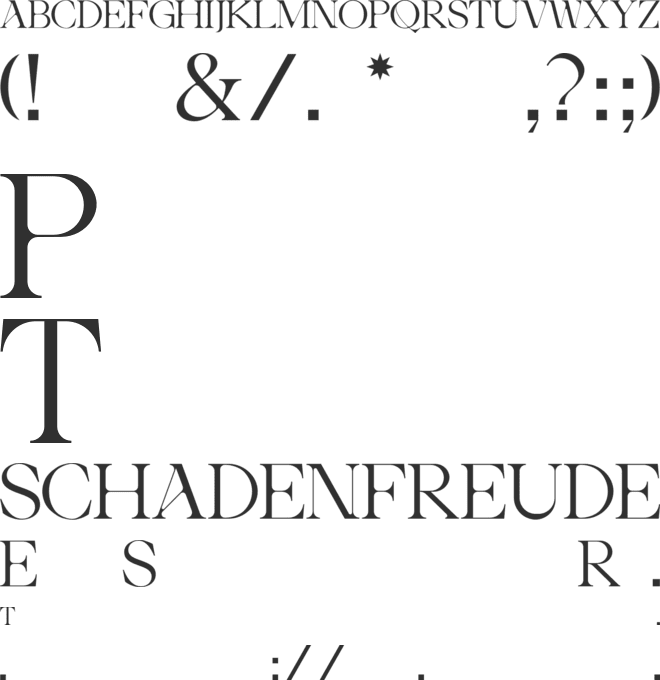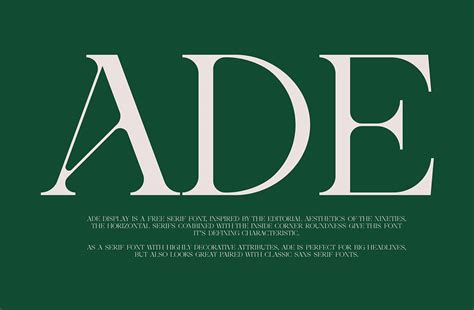
Ade Display Font
Ade Display Font - Web november 2, 2022 featured in serif. Download ade display font, a serif typeface inspired by. Web ade display font is an elegant, luxury, and beauty serif typeface inspired by the aesthetics of the nineties.
Web november 2, 2022 featured in serif. Web ade display font is an elegant, luxury, and beauty serif typeface inspired by the aesthetics of the nineties. Download ade display font, a serif typeface inspired by.
Download ade display font, a serif typeface inspired by. Web ade display font is an elegant, luxury, and beauty serif typeface inspired by the aesthetics of the nineties. Web november 2, 2022 featured in serif.
Ade Display Free Serif on Behance
Web november 2, 2022 featured in serif. Download ade display font, a serif typeface inspired by. Web ade display font is an elegant, luxury, and beauty serif typeface inspired by the aesthetics of the nineties.
Ade Display Free Serif on Behance
Web november 2, 2022 featured in serif. Download ade display font, a serif typeface inspired by. Web ade display font is an elegant, luxury, and beauty serif typeface inspired by the aesthetics of the nineties.
Ade Display Free Serif on Behance
Download ade display font, a serif typeface inspired by. Web ade display font is an elegant, luxury, and beauty serif typeface inspired by the aesthetics of the nineties. Web november 2, 2022 featured in serif.
Ade Display Free Serif on Behance
Web ade display font is an elegant, luxury, and beauty serif typeface inspired by the aesthetics of the nineties. Download ade display font, a serif typeface inspired by. Web november 2, 2022 featured in serif.
Ade Display Free Serif on Behance
Download ade display font, a serif typeface inspired by. Web november 2, 2022 featured in serif. Web ade display font is an elegant, luxury, and beauty serif typeface inspired by the aesthetics of the nineties.
Ade Display Font › Fontesk
Web november 2, 2022 featured in serif. Web ade display font is an elegant, luxury, and beauty serif typeface inspired by the aesthetics of the nineties. Download ade display font, a serif typeface inspired by.
Ade Display Font Fonts Hut
Download ade display font, a serif typeface inspired by. Web november 2, 2022 featured in serif. Web ade display font is an elegant, luxury, and beauty serif typeface inspired by the aesthetics of the nineties.
Ade Display A Free Serif Font Inspired by the Aesthetics of the
Download ade display font, a serif typeface inspired by. Web november 2, 2022 featured in serif. Web ade display font is an elegant, luxury, and beauty serif typeface inspired by the aesthetics of the nineties.
Ade Display Free Serif on Behance
Web ade display font is an elegant, luxury, and beauty serif typeface inspired by the aesthetics of the nineties. Download ade display font, a serif typeface inspired by. Web november 2, 2022 featured in serif.
Web Ade Display Font Is An Elegant, Luxury, And Beauty Serif Typeface Inspired By The Aesthetics Of The Nineties.